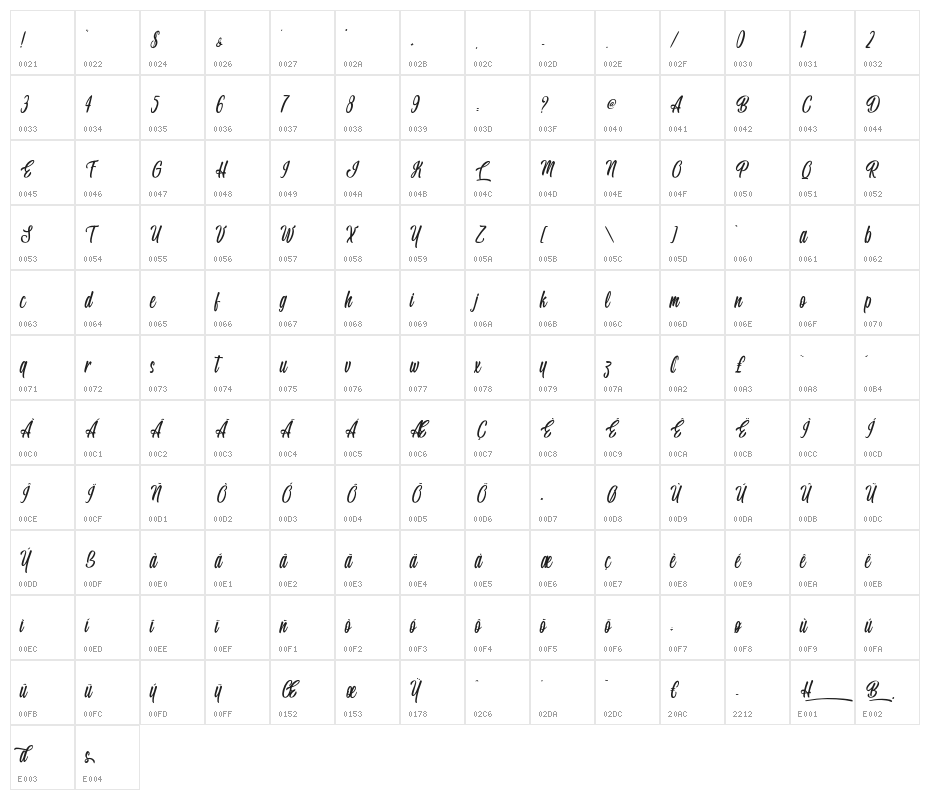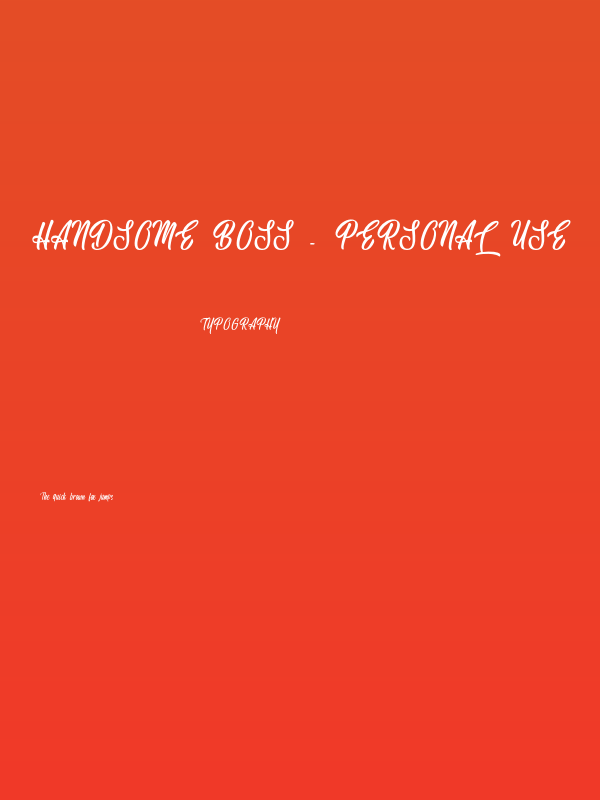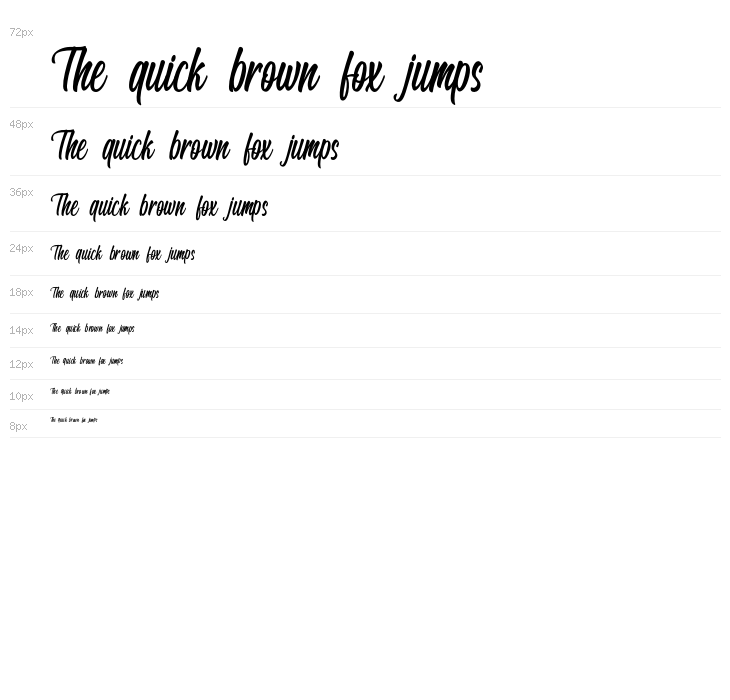
Handsome Boss - Personal Use Font
This font features a stylish, cursive design that exudes elegance and sophistication. The letters are smoothly connected, creating a fluid and continuous flow that is both visually appealing and easy to read. The uppercase letters are bold and prominent, while the lowercase letters maintain a consistent style with slightly less emphasis. Numbers and special characters are designed to match the overall aesthetic, ensuring a cohesive look across all text. The font's graceful curves and balanced proportions make it suitable for a variety of creative applications.
Overall StyleElegant
Use CaseLogos, Invitations, Decorative text
Proposed ProjectsIdeal for wedding invitations, branding, greeting cards, and elegant signage.